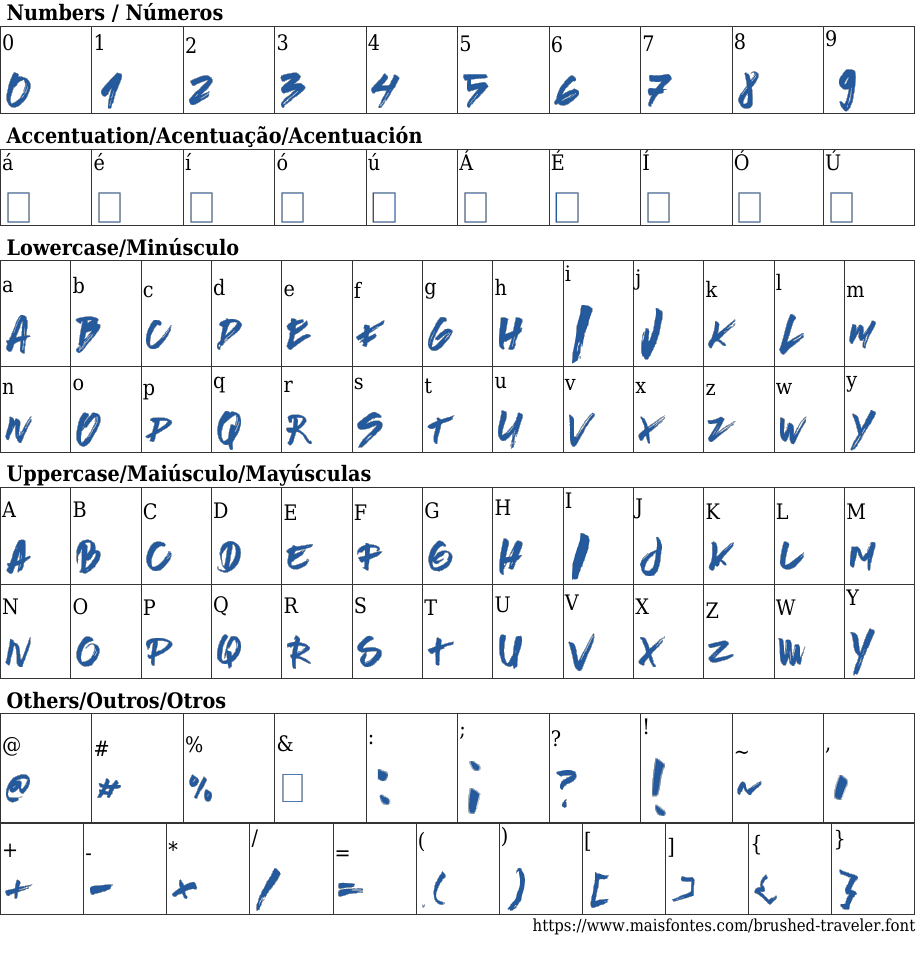
Brushed Traveller Font . Free download of brushed traveler font. Brushed traveler is a script type font that can. Download and install the brushed traveler font by leosupply.co. The handwriting of this font emits waves of. The brushed traveler font has been downloaded 5,350 times. The brushed traveler font is handcrafted in style and will bring elegance to your artwork.